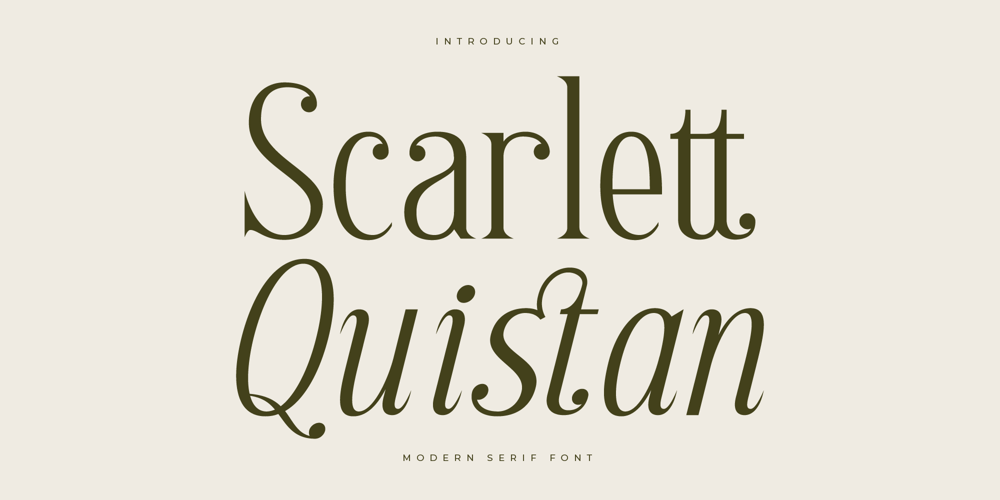
Scarlett Quistan
Scarlett Quistan font
Scarlett Quistan Font Family was designed by Heru Utama Putra and published by Letterena Studios. Scarlett Quistan contains 2 styles and family package options. Scarlett Quistan is a stylish serif font exuding modern elegance and sophistication. With its clean lines and subtle curves, it strikes a perfect balance between classic and contemporary. Ideal for editorial design, branding, and luxury packaging, this font adds a touch of refinement and sophistication to any project.